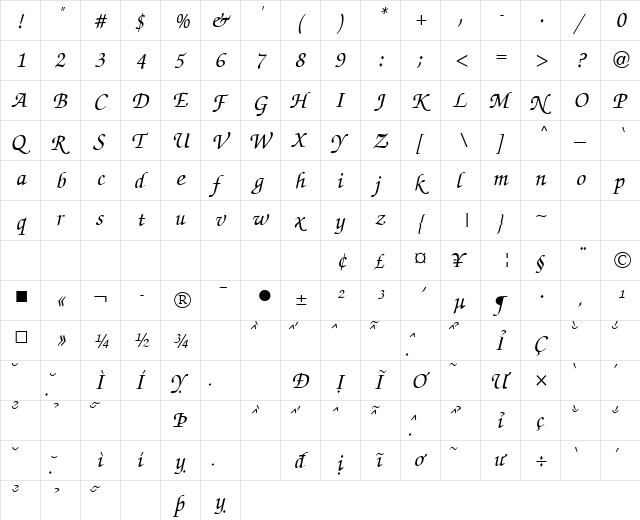
VNI-Zap Normal
Design Context for VNI-Zap Typeface
VNI-Zap is a composed and adaptable typeface that performs quietly and consistently across a wide range of design contexts.